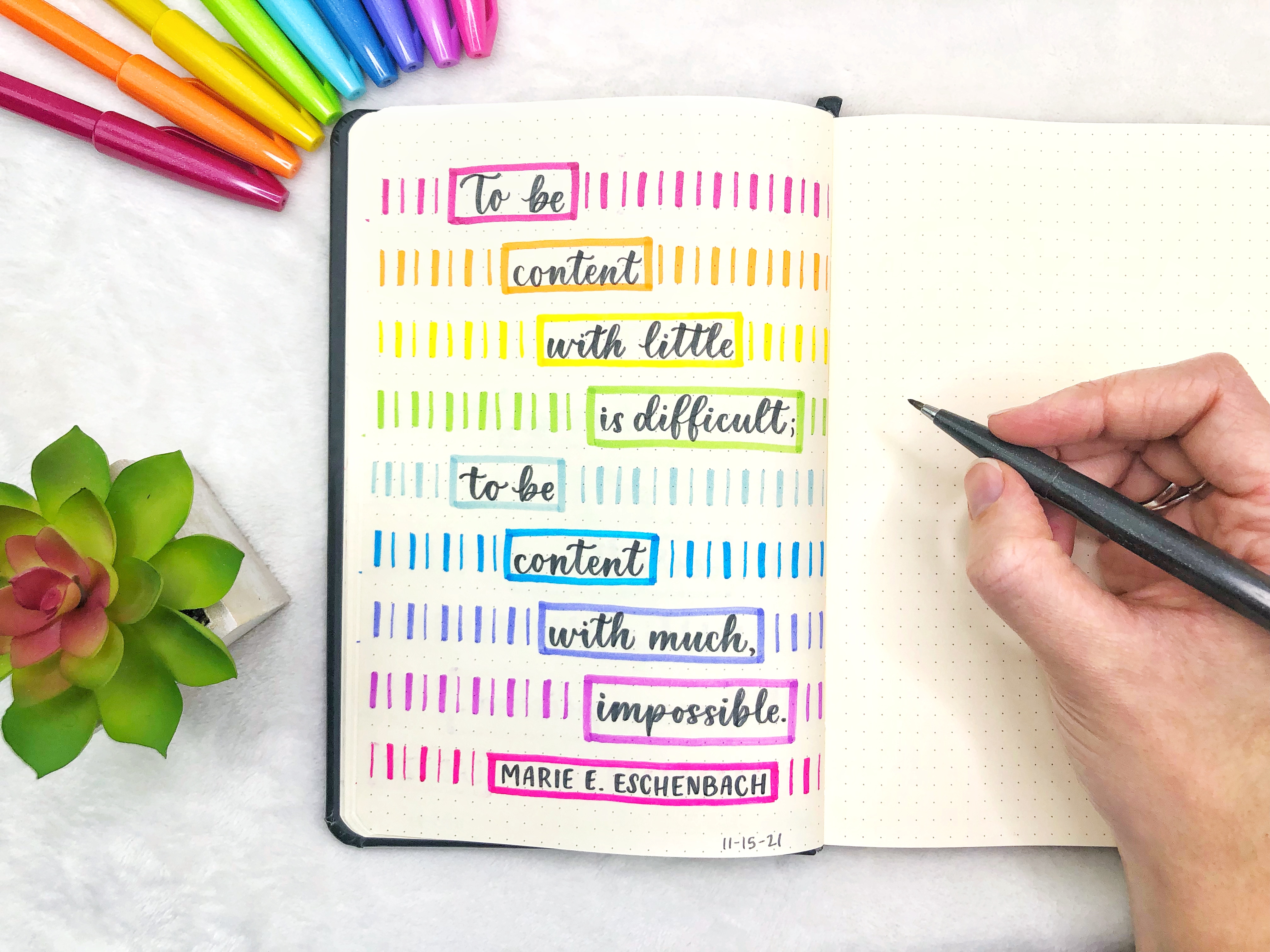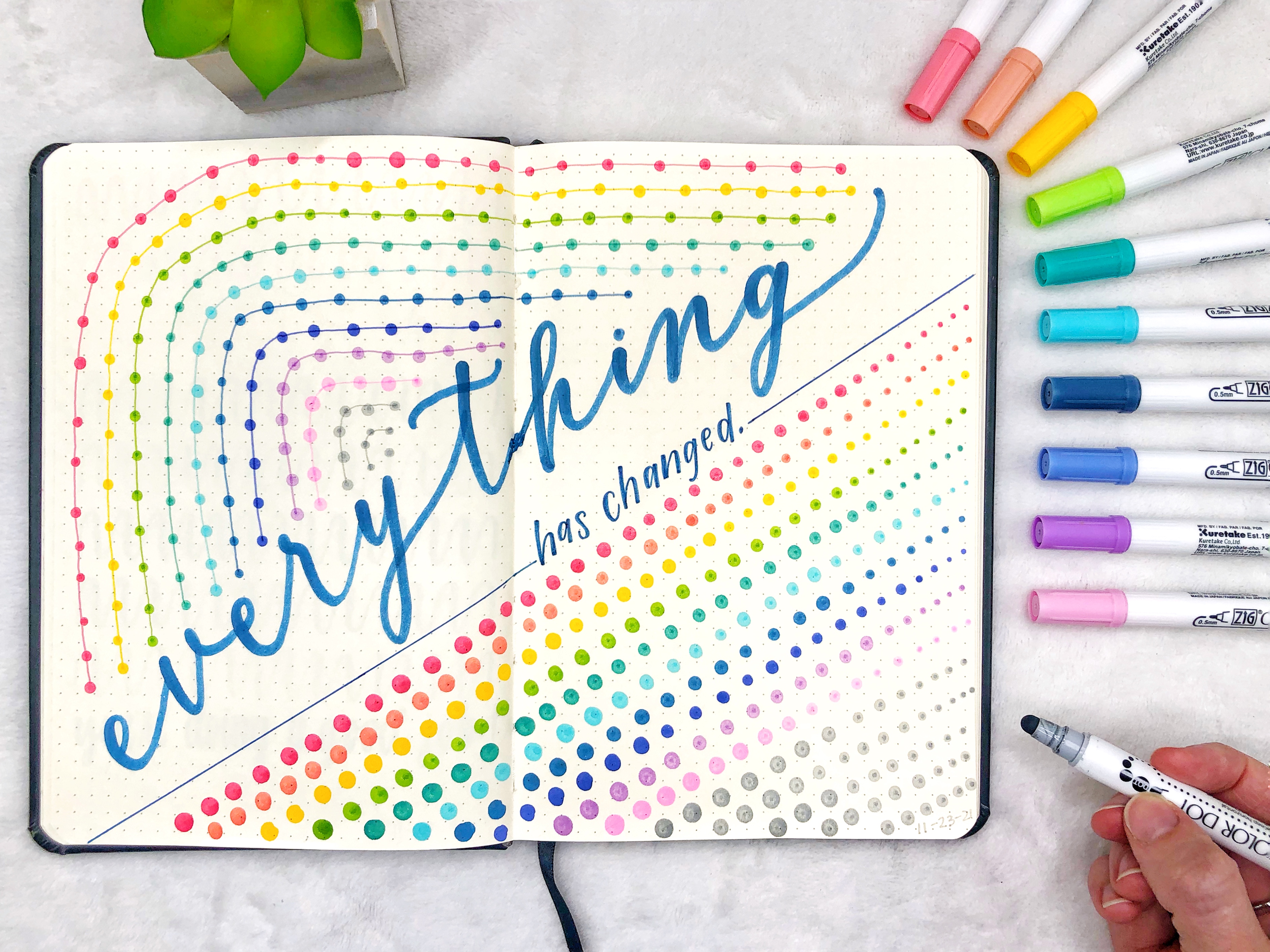
November Challenge
Optional: I'll be using one set of pens and one alphabet style for the whole month. You can join me or choose your own. The point is to make things as simple as possible by deciding beforehand. I'll be using my Pentel Touch brush pens and my basic style from my Hand Lettering Worksheets for Beginners.
Week 1: What are you grateful for right now?
This week I already lettered two pages with things I'm grateful for. These are things I want to remember because they make me so happy. My almost 2-year-old thinks the word "squeaky" is hilarious and laughs so hard when I say it. She says "keeky" and then laughs. She's the cutest. She's also been doing this thing where she wraps her arms around my head and squishes our faces together. And of course, toddlers blowing kisses is beyond cute.
Sometimes life is just so dang hard. By lettering these pages, I'm holding on to the moments that remind me how much I love my life.
These two pages didn't take me long! The one on the left took me about 15 minutes (the words were 5 minutes and those extra lines took a while). The one on the right took me 10 minutes. I used my basic font style (as well as a print style in uppercase) and my Pentel Touch brush pens. I didn't think much about it or plan it out. I simply wanted to fill the page and that's what happened.
Remember, you can letter every day this week or only letter once! You can letter the prompt or letter whatever you're feeling right now.
Lastly, let it be imperfect! If feelings of inadequacy are keeping you from lettering this week, let it go. It doesn't have to be perfect. Allow yourself to show up and create however that looks right now. Let yourself make mistakes. Just get something out on the page.
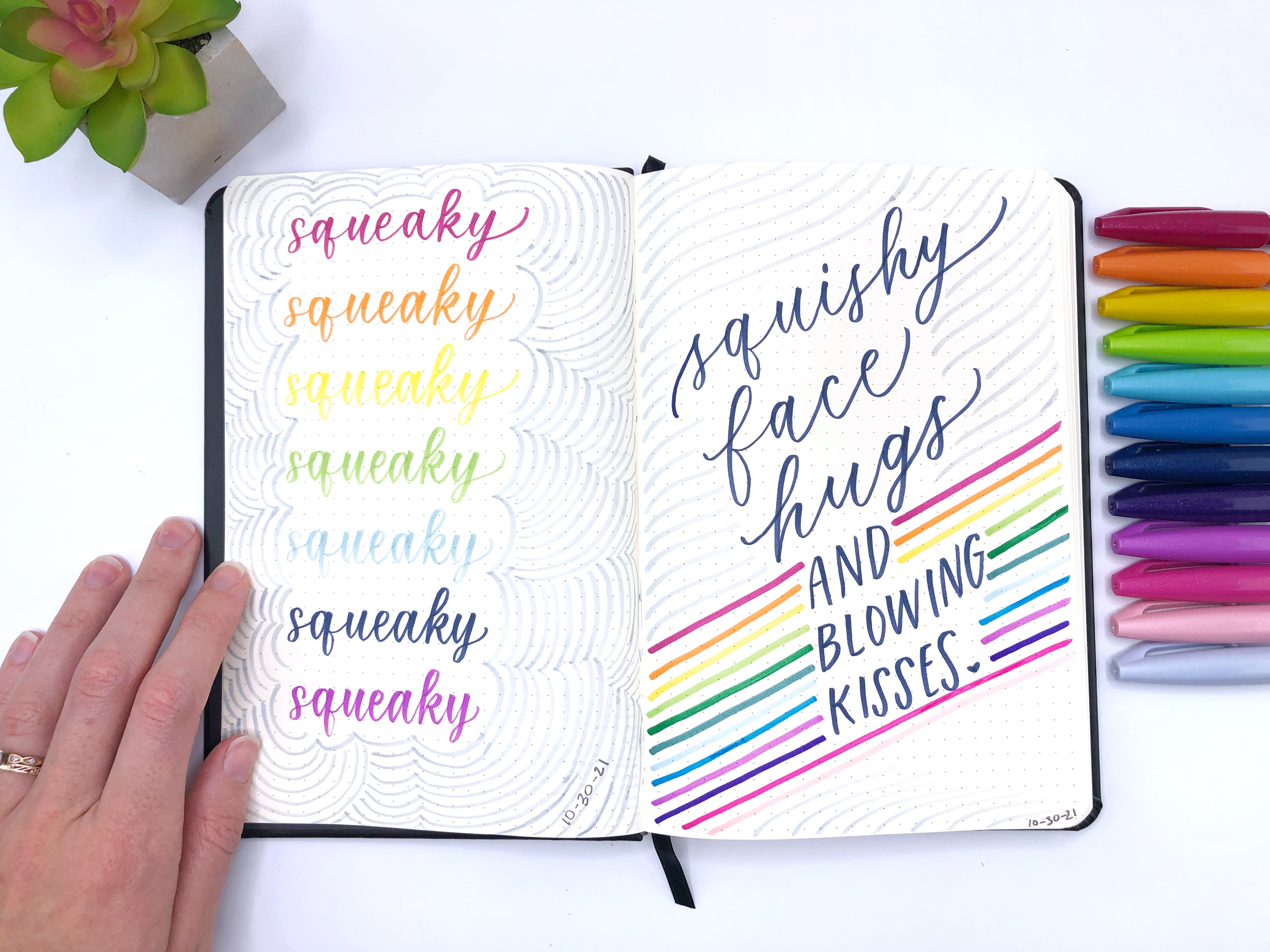
Week 2: Gratitude turns what we have into enough.
This week I had an idea of how to layout this quote but when I did it, I didn't like it at all. So I did it a second time (in the photo below) and I liked this one better but still didn't love it. I was struggling if I should do it a third time so I have something else to share with you. Then I realized I was forgetting the whole point of a hand lettering journal. It's not to create a perfect lettering piece every time. It's just to get some creative time to myself.
Also, if I only share the "perfect" pieces with you, that's not really me. The reason I didn't like my first quote is that it was too perfect. I personally like a lot of imperfections in my lettering.
The way I use lettering for myself is simply the act of lettering. Which means it's not going to be perfect!
As I was thinking about how I like imperfections in my lettering, my husband walked into my office and startled me. I was in my lettering zone with my noise-canceling headphones with my pen on the paper. I jumped quite a bit and that's why there's a red blob on the right side of my rainbow. At first, I was frustrated and then I realized I like the imperfections right? Haha!
So instead of lettering the quote I had planned, I lettered “Lean in to the imperfection.” And now when I look at this page I'll remember why that red blob is there and how my husband and I laughed about how bad I jumped.
By spending time lettering, you are showing up for yourself. Be proud of that instead of getting down on yourself for all of the imperfections in your lettering. :)
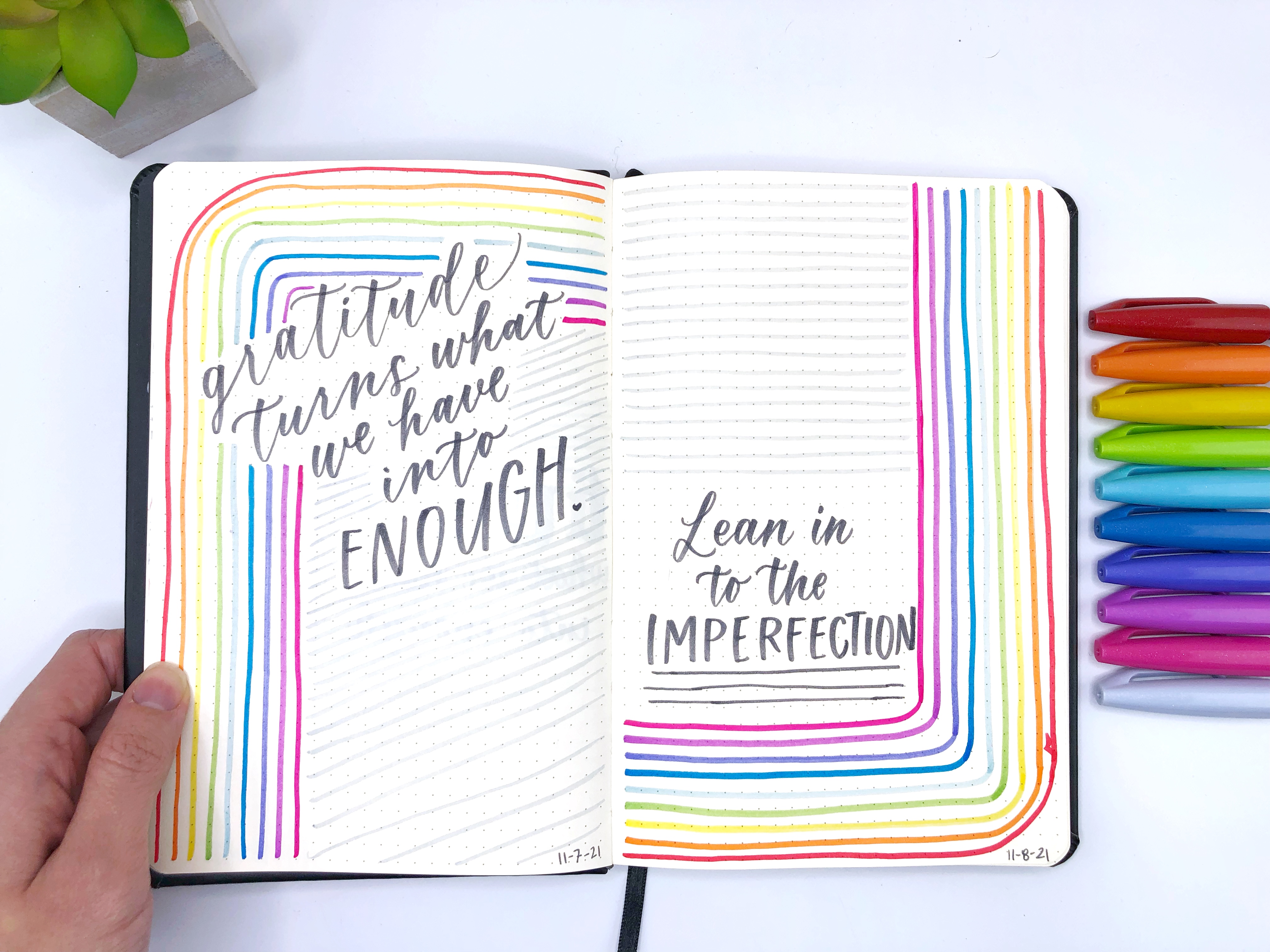
Week 3: "To be content with little is difficult; to be content with much, impossible."
Here's the truth about long quotes. They take a really long time. You have to plan the layout and sketch it out several times before you get it just right. I used to spend hours (days?) perfecting a long quote. And I loved it. It was a really fun challenge.
However, things changed this year since I've been so burnt out. I have no energy to work on a quote for hours. I also don't have the time (hello, busy two-year-old). So that means it would take me weeks to finish a quote that used to take me days. There's definitely a place for that! If you are in a good mental space to conquer a long quote, you should do it.
If you're like me and just don't have the energy, you have options. It doesn't have to be as elaborate as all of those beautiful pieces you see on Instagram. It can still be really simple.
This took me 15 minutes from start to finish. That's much more doable than spending hours sketching out a quote. If I did spend the time sketching out this quote, I'm sure I could do something really great with it. But my purpose was centering myself on a stressful day. And I accomplished that in just 15 minutes.
Seriously, that day I was pretty grumpy. I didn't have the energy to do an elaborate lettering piece and was kinda dreading the long quote. But this actually gave me back some energy. After lettering this, I went downstairs to see my husband and said, “Wow, I feel so much better!”
Week 4: Words from a song that you love right now.
- It can also be a brush pen because it's flexible!
- Double sided- the fine tip can also be a brush pen! (Sort of like Monami Plus pen 3000 for really tiny calligraphy. Thank you to the Youtube commenter who told me about this!)
- They don't fray since they're not an actual brush tip so you can use them on any paper!
- No black
- The pink is leaning towards fluorescent which I don't love
- Because they're really juicy, they can bleed and ghost on thinner pages
- The round tip is hard to get a really fine line (see the blob in the spine of my journal? Haha!)